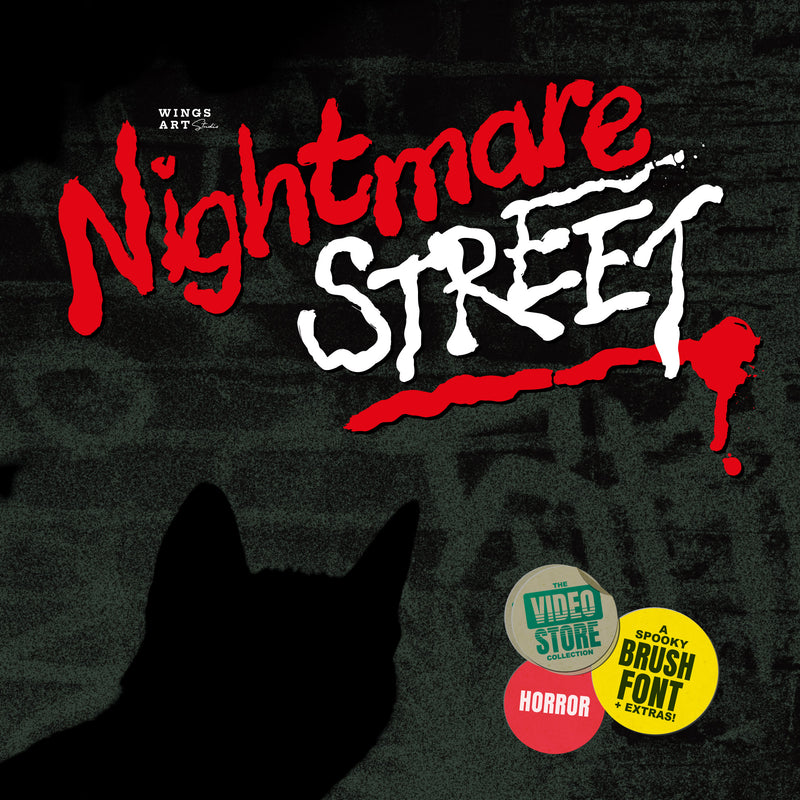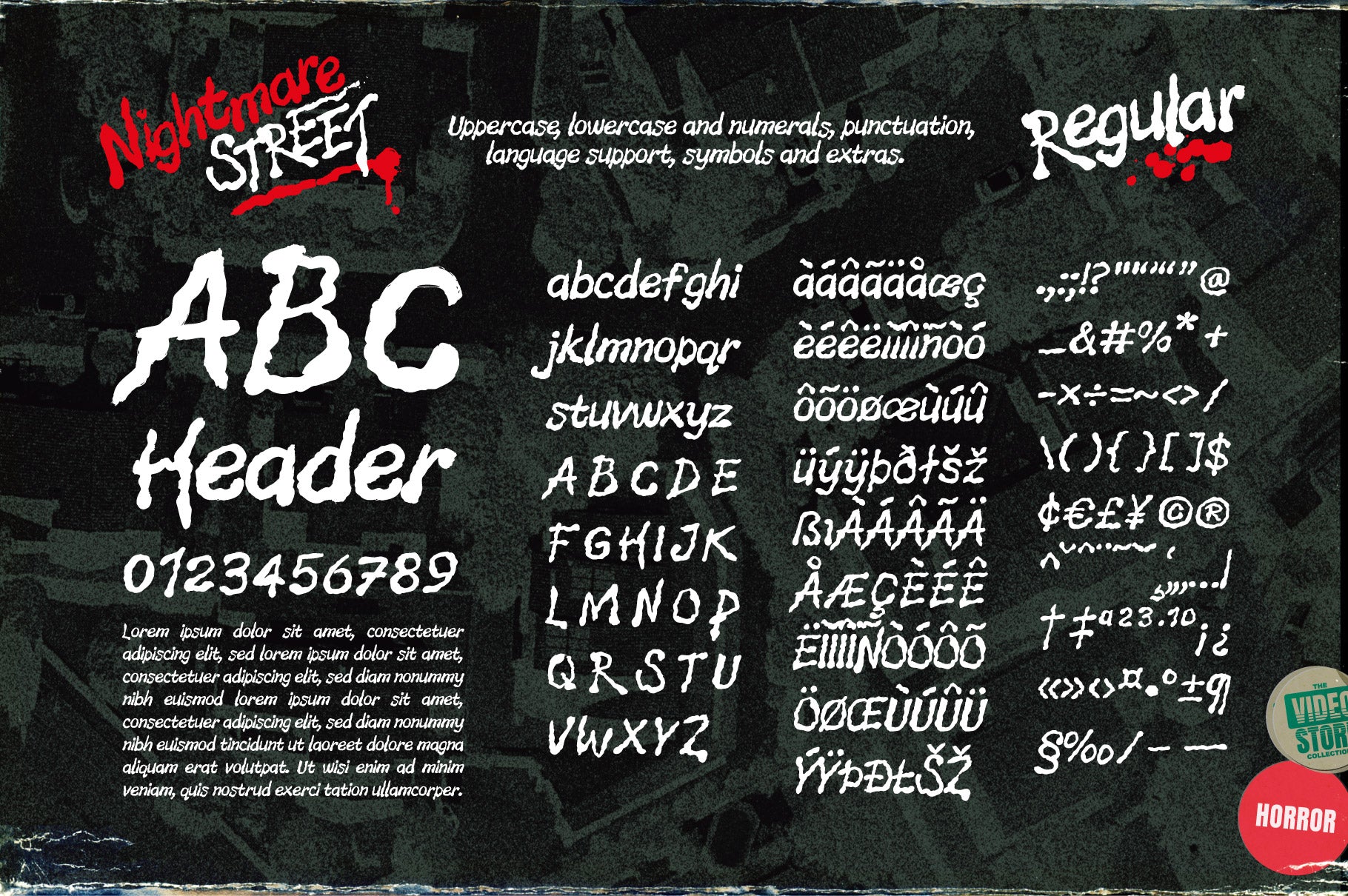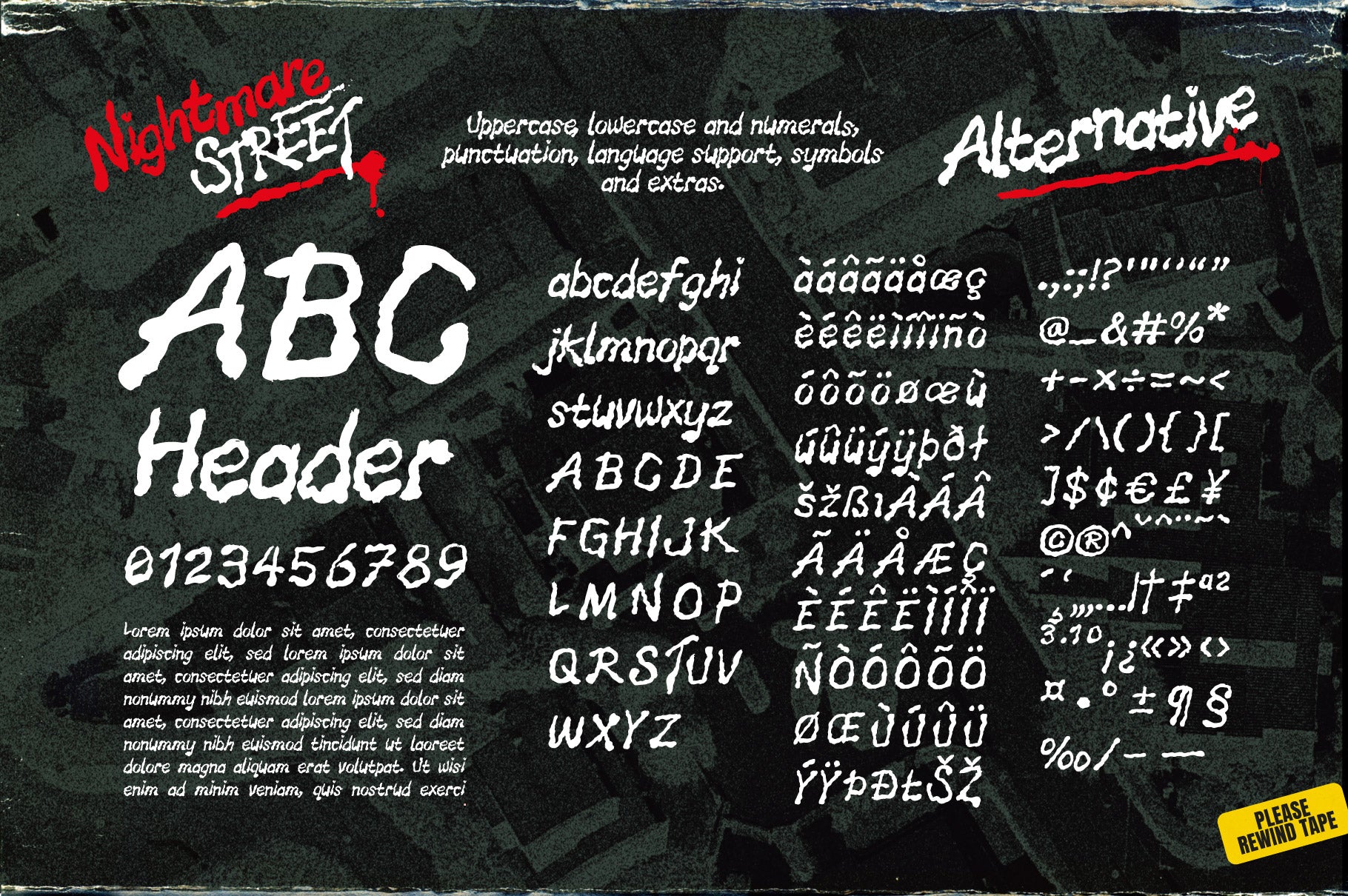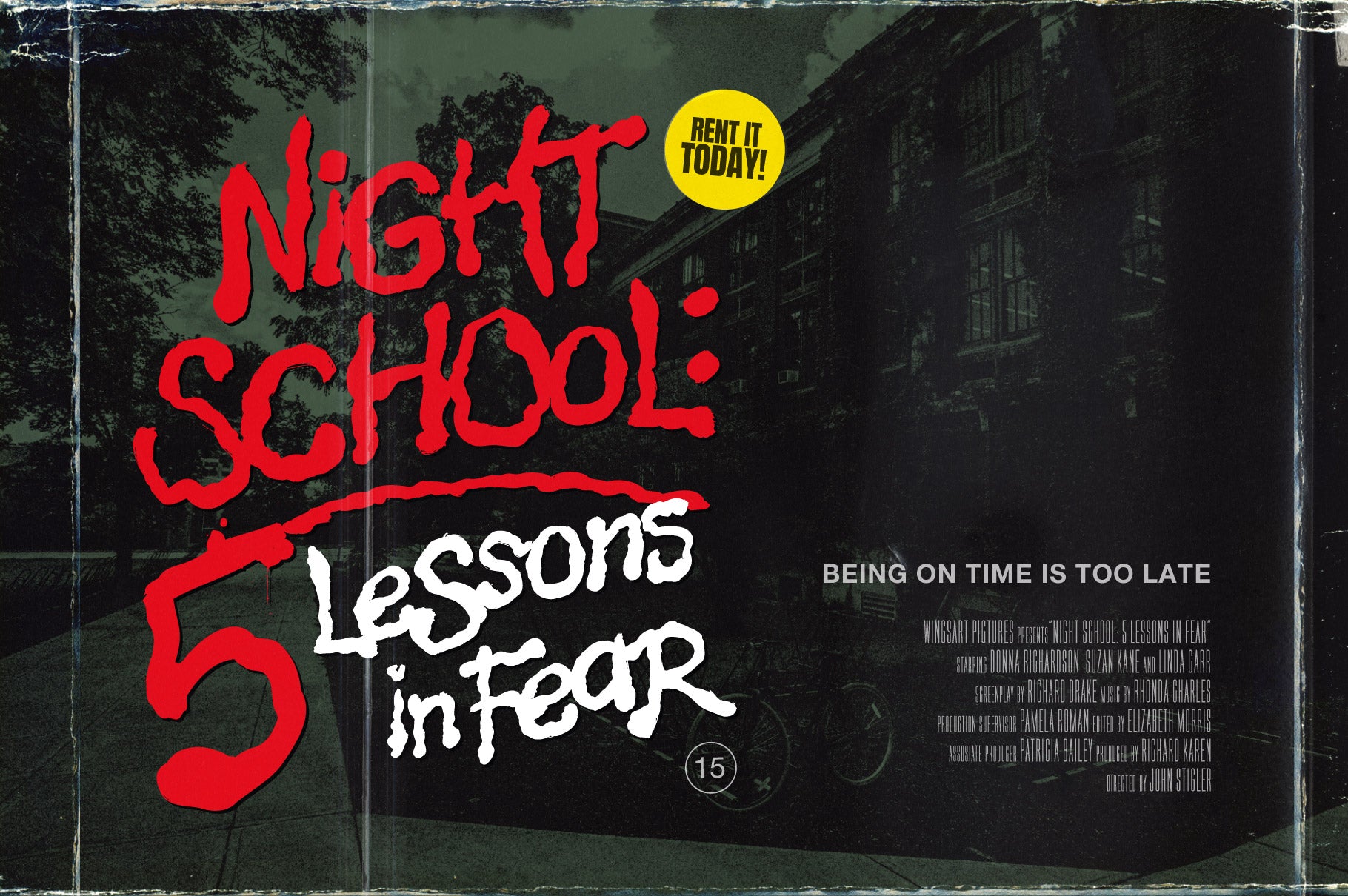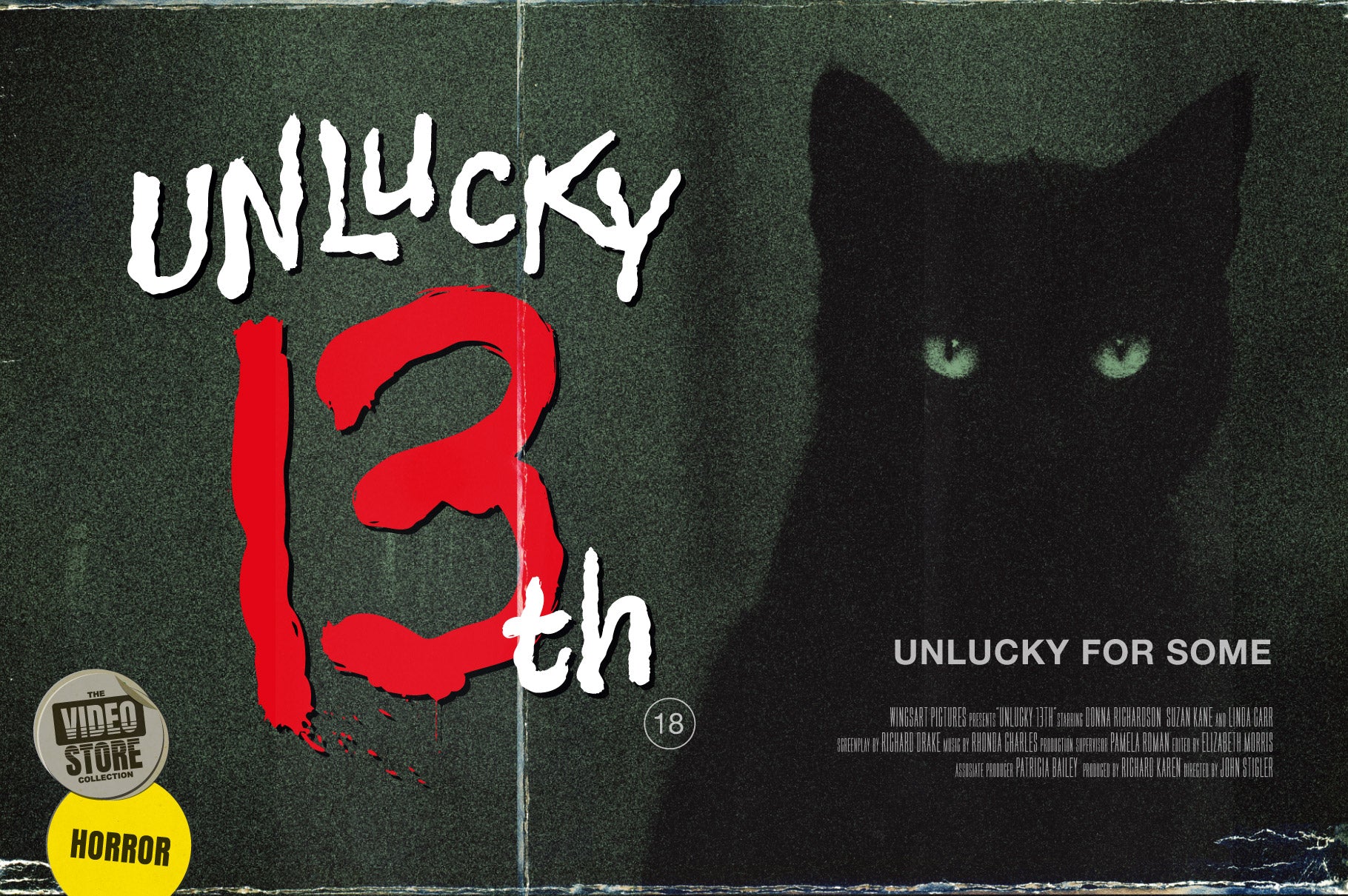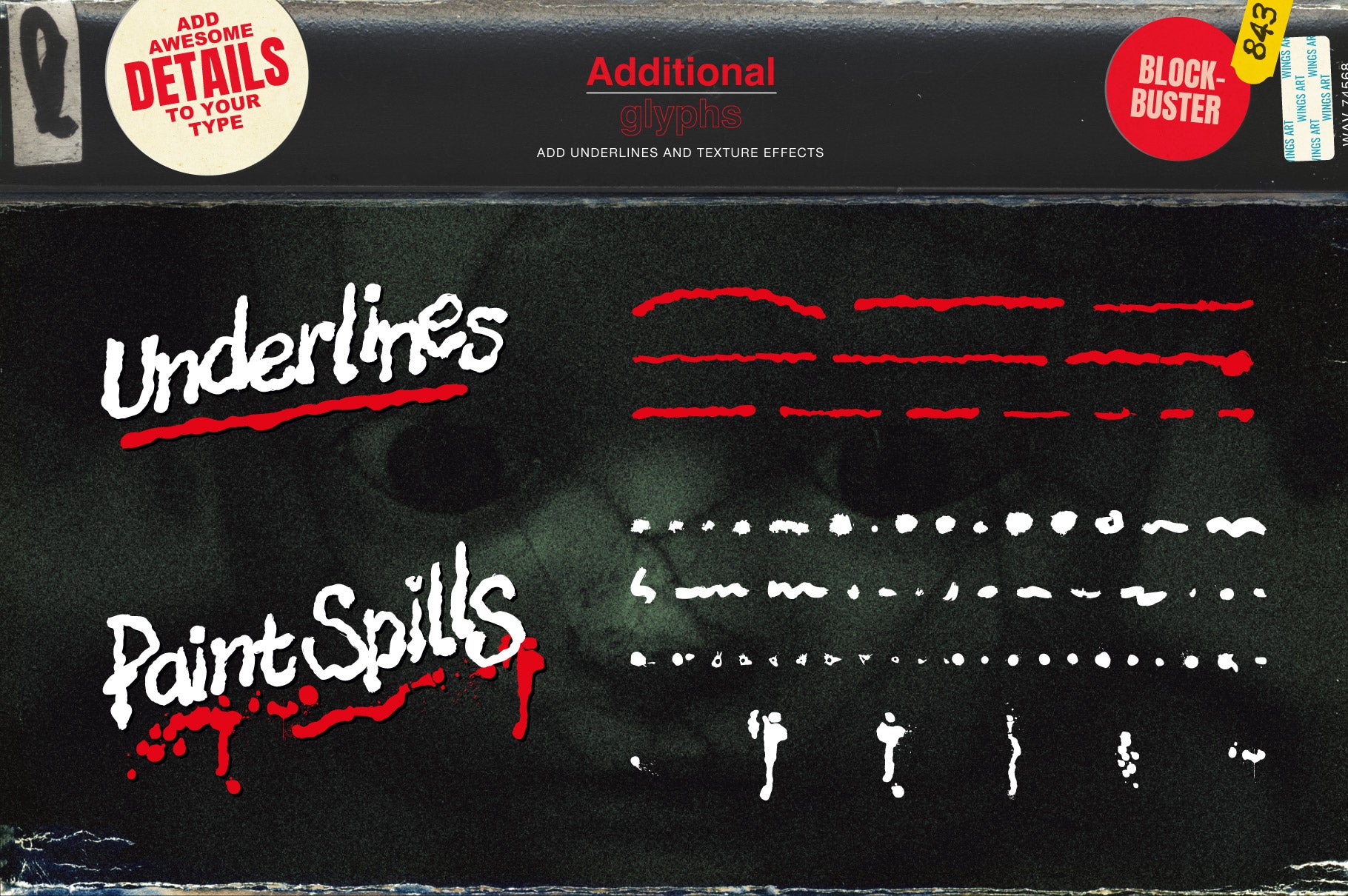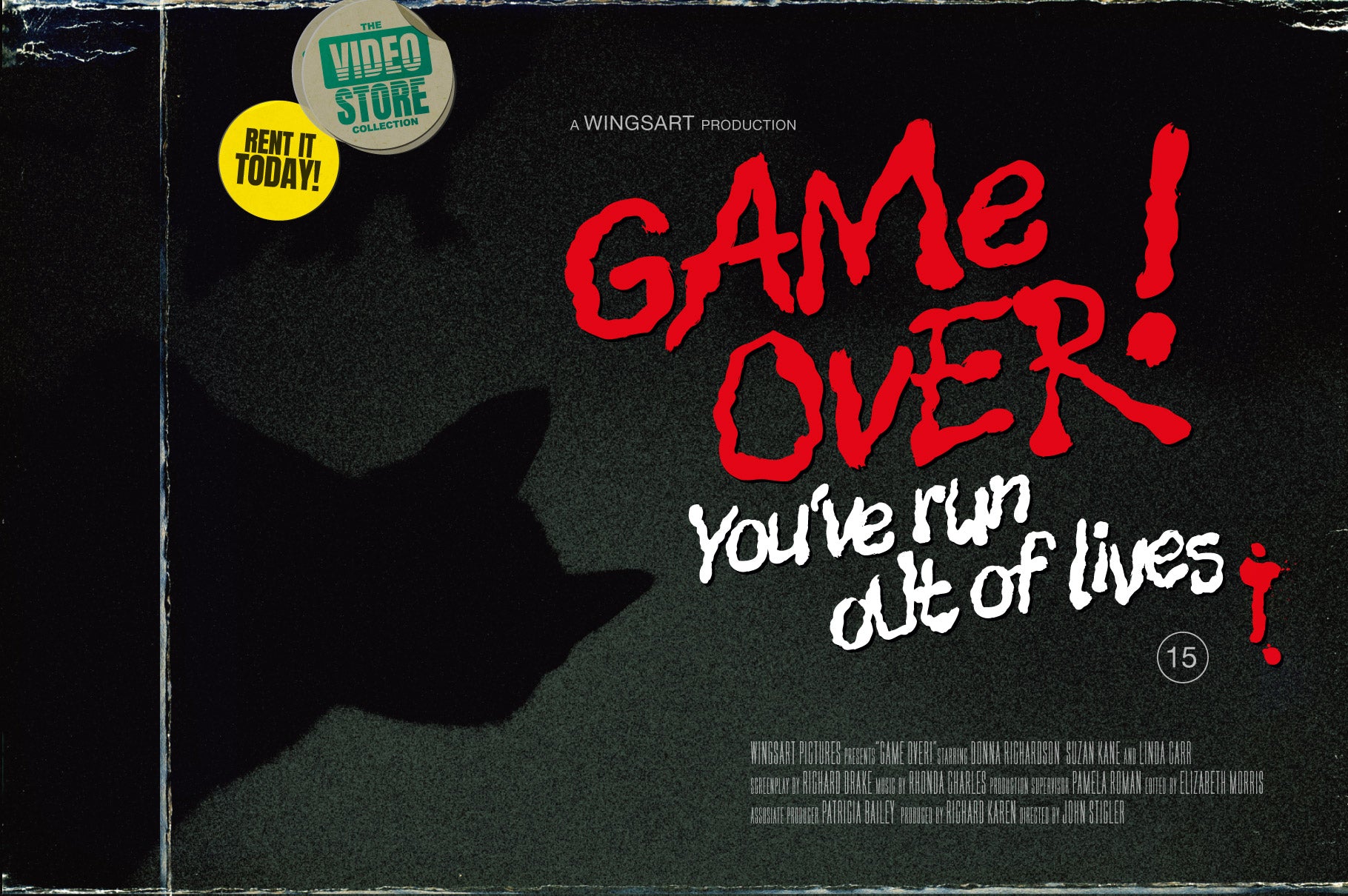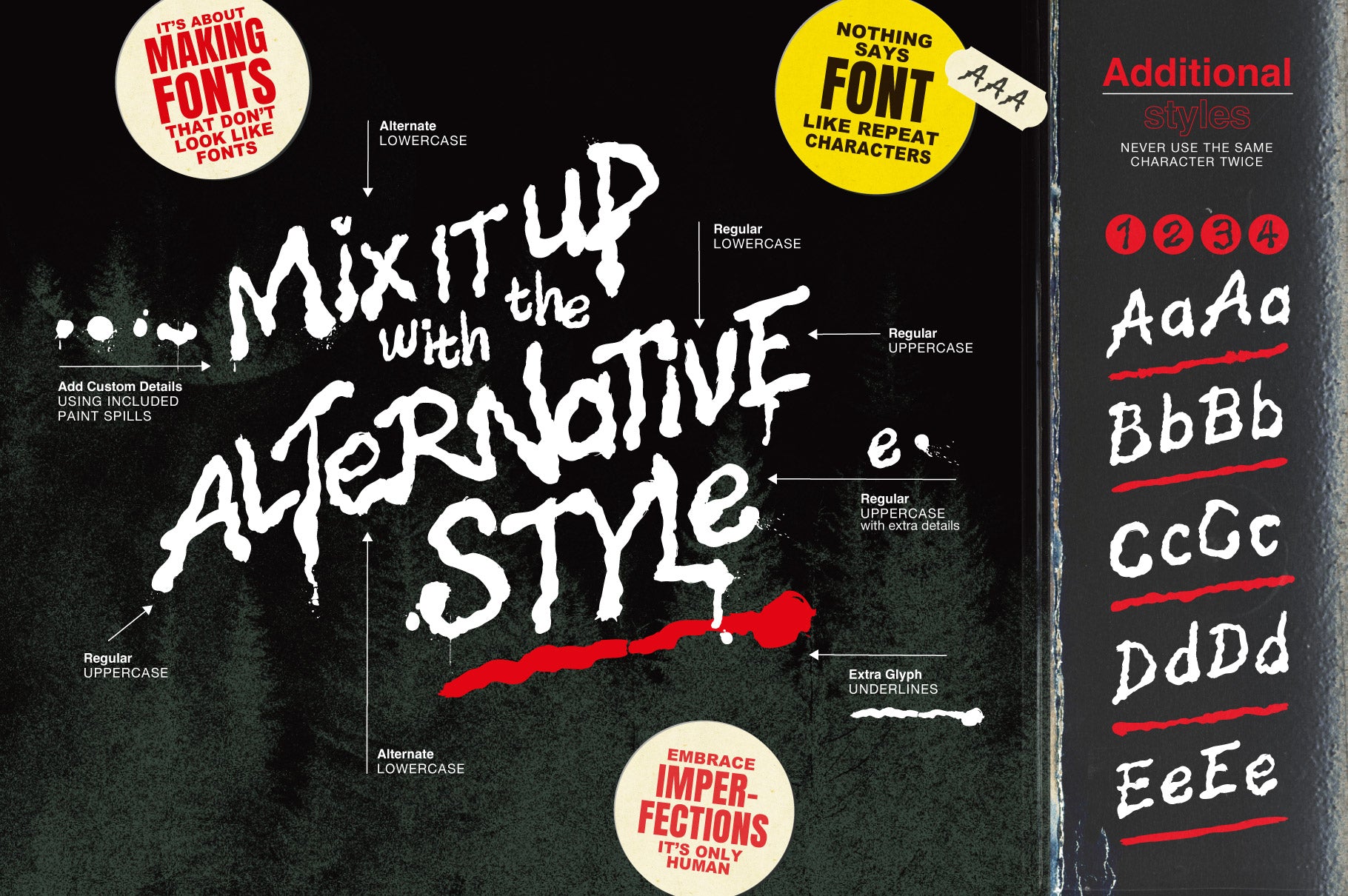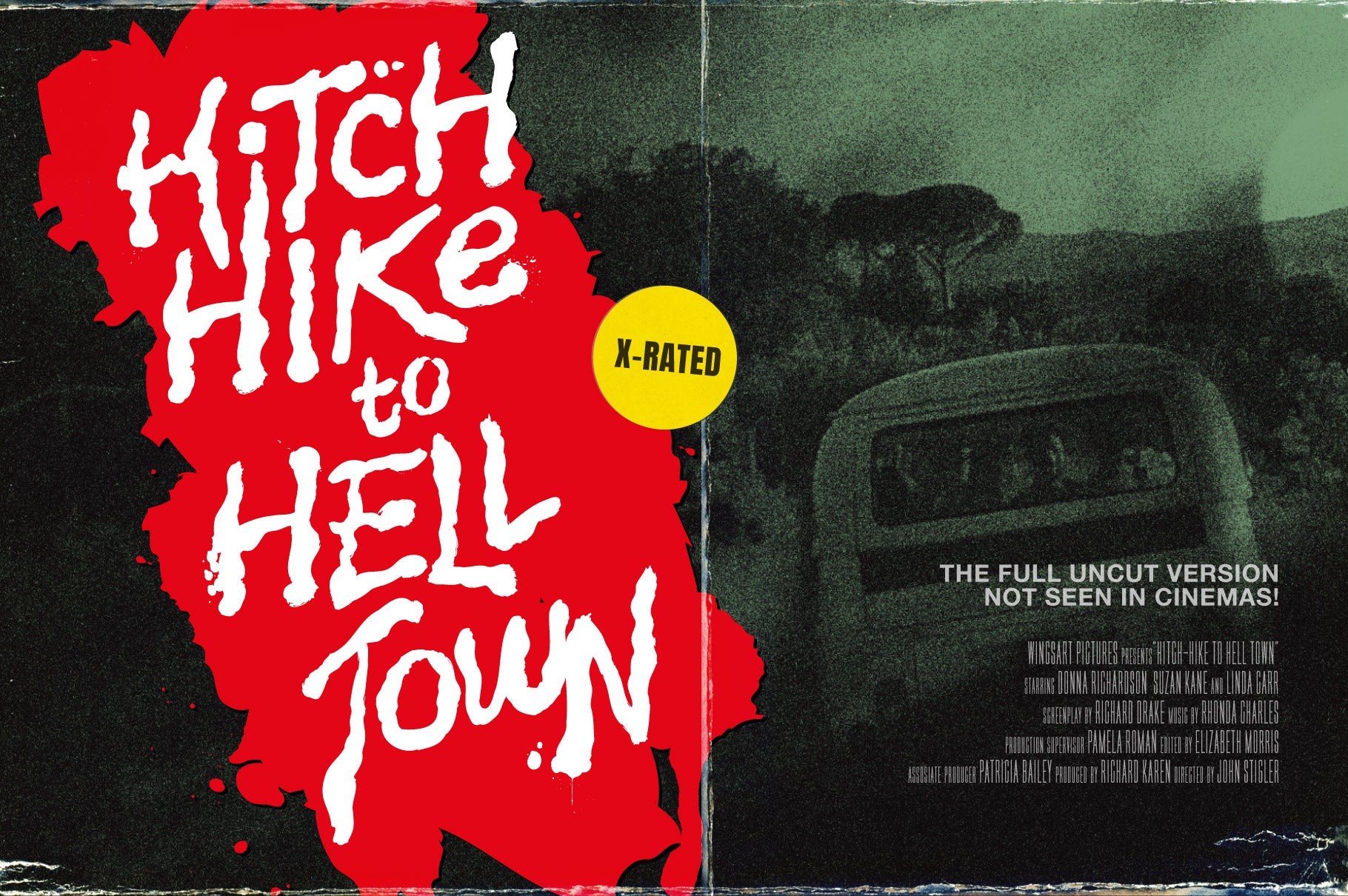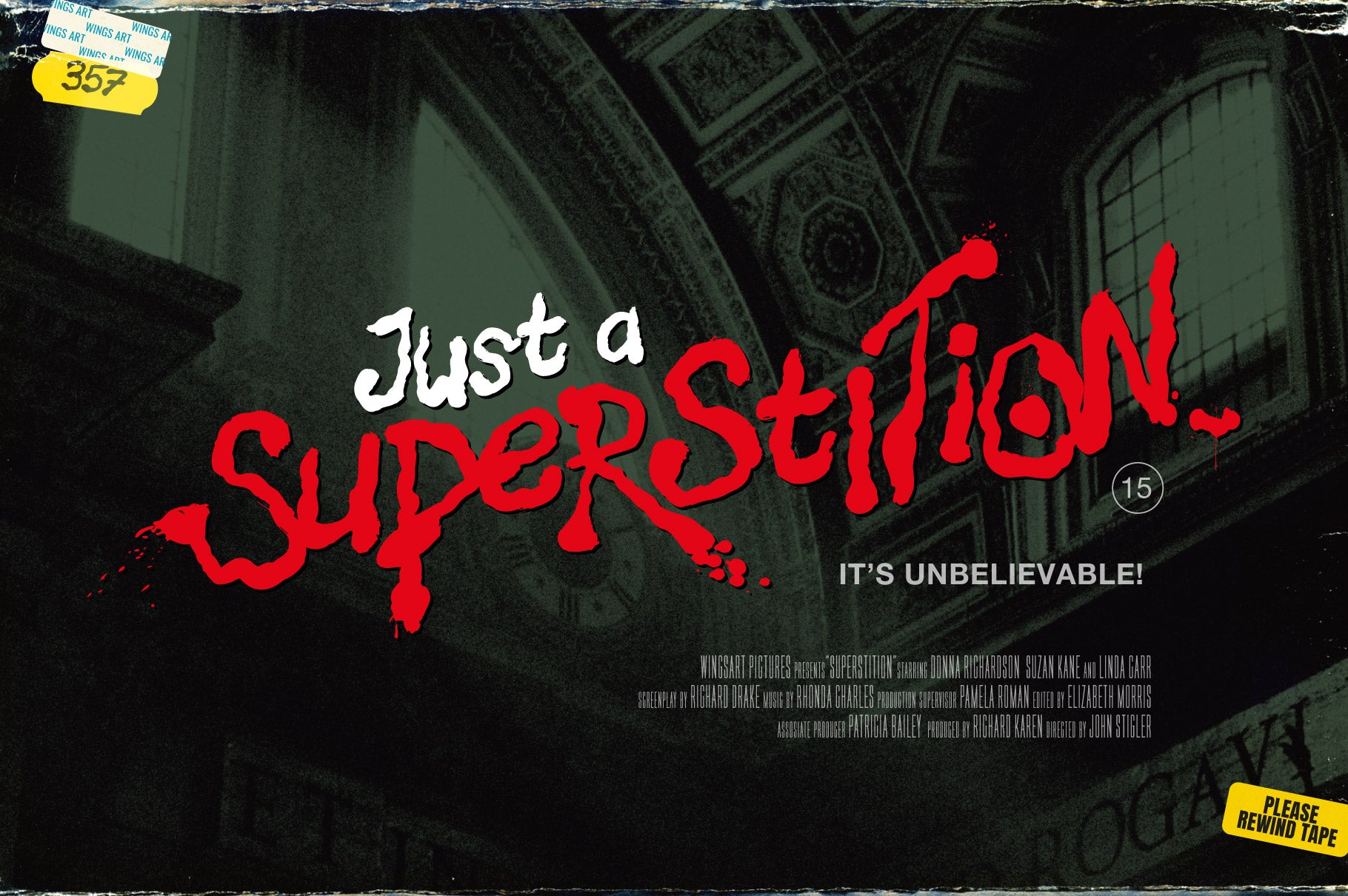
Nightmare Street - The Retro Horror Font
Nightmare Street - The Retro Horror Font is an 80s-inspired horror typeface featuring two styles, complete uppercase and lowercase characters, punctuation, numerals, and language support. It includes a full set of alternatives for a hand-drawn appearance, along with additional underlines and paint spills.
Ideal for 80s-inspired horror design and retro-themed projects. Perfect for movie posters, album covers, Halloween promotions, and book designs, ensuring an authentic hand-drawn aesthetic that captures the essence of vintage video culture.